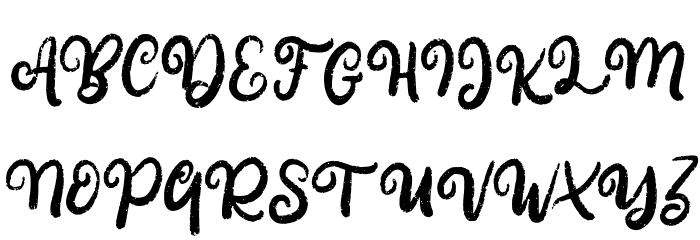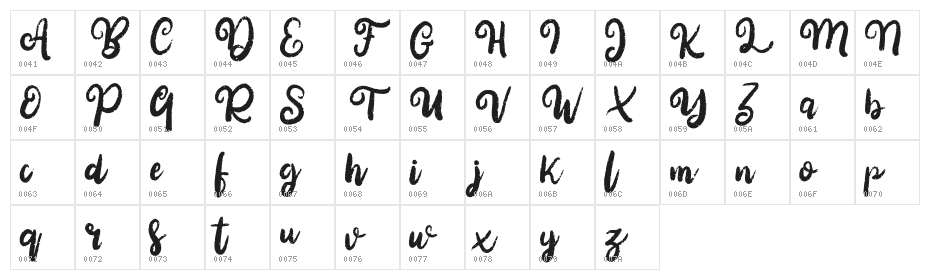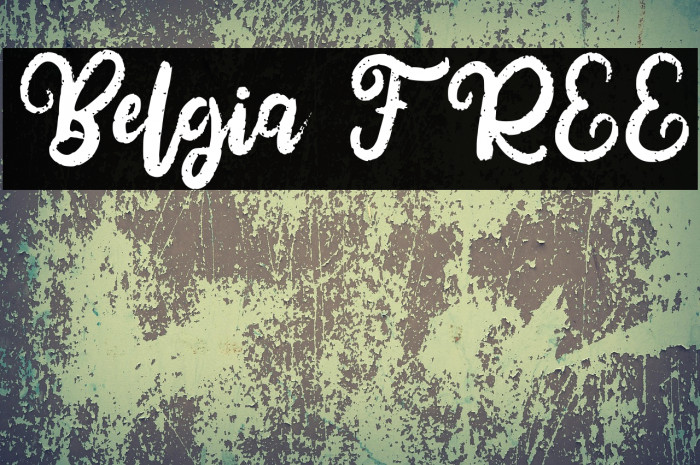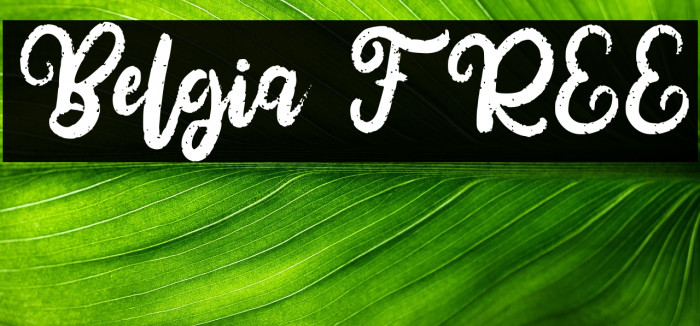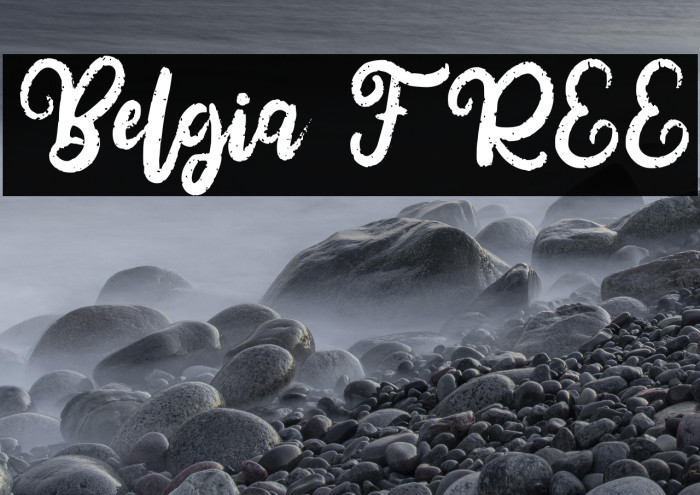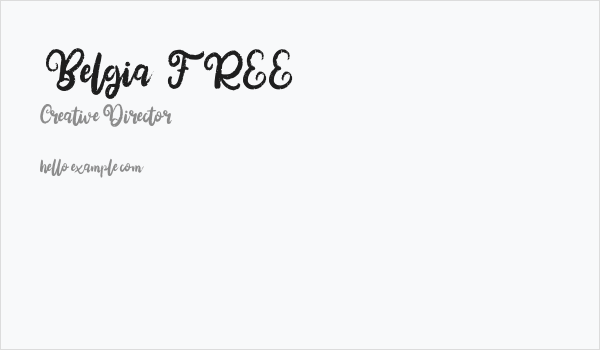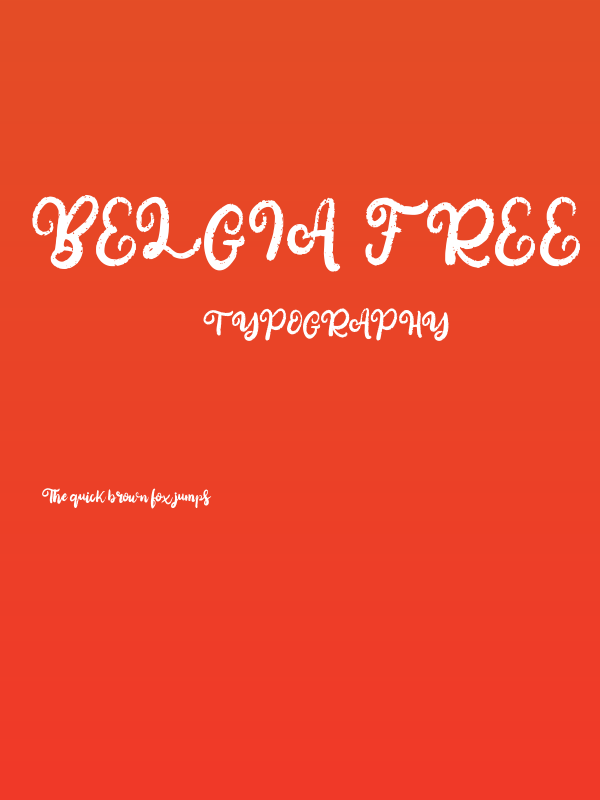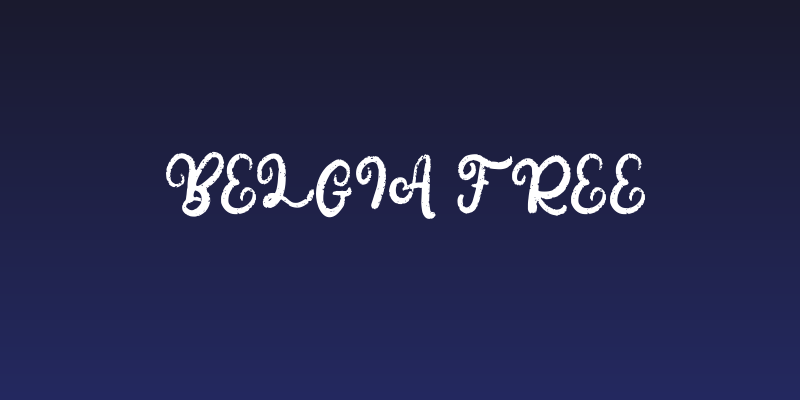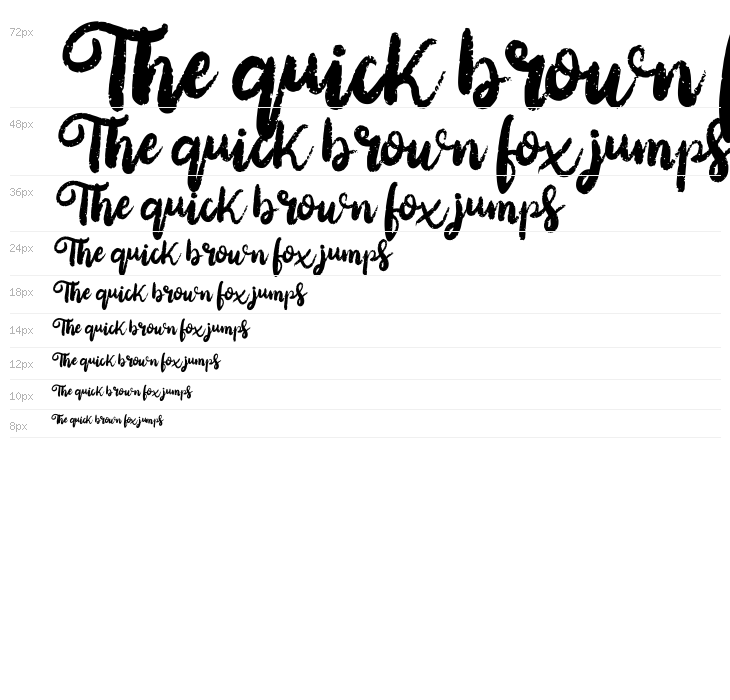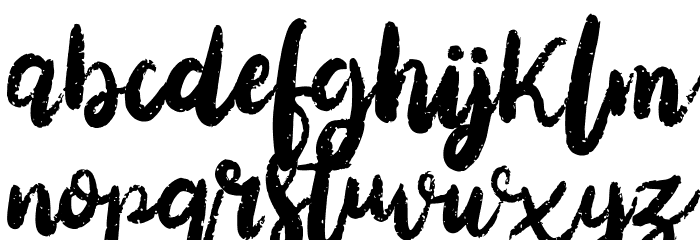
Belgia FREE Font
Belgia FREE Description
This font features a bold, brush script style with a textured appearance, giving it a handcrafted and artistic feel. The letters are connected, creating a flowing and dynamic look. The uppercase and lowercase characters maintain a consistent style, with swashes and loops adding to the decorative nature. The font's texture suggests a vintage or rustic aesthetic, making it suitable for designs that require a personal touch. The numbers and special characters are designed to match the overall style, ensuring cohesion across different types of content.